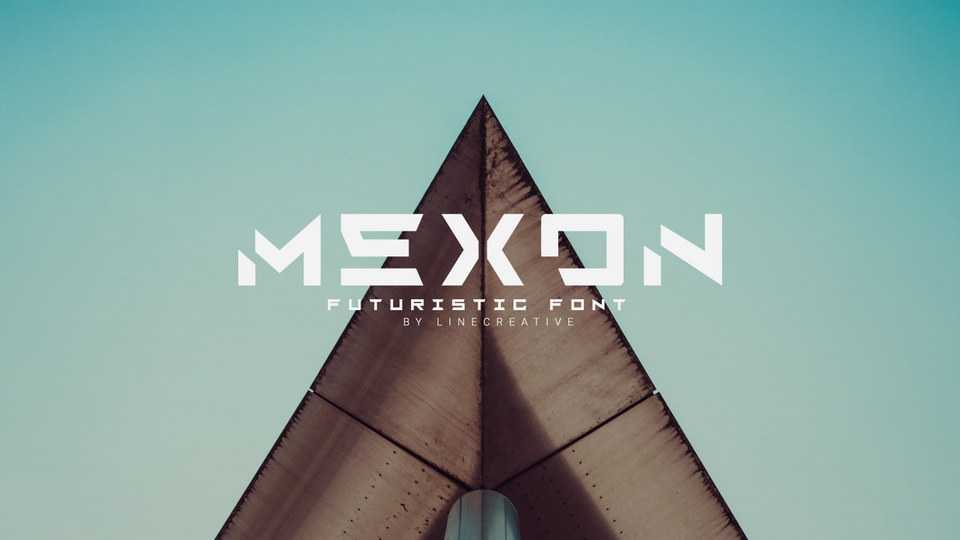
Download Mexon font, a bold futuristic display typeface. Mexon is ideal for logo, posters, or other projects that requires a cool, assertive touch.
Designer: Linecreative